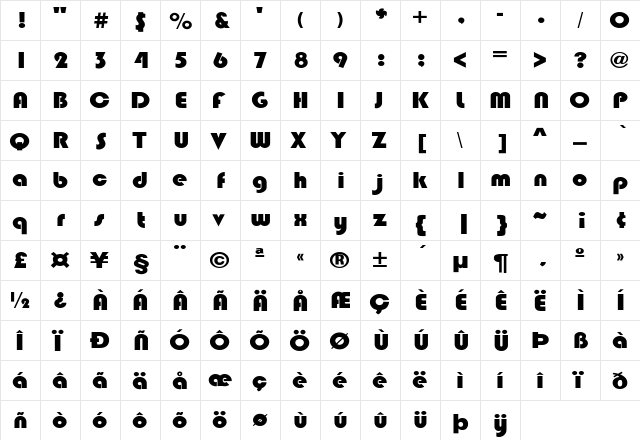
BlippoExt-Heavy Regular
Design Context for BlippoExt-Heavy Typeface
BlippoExt-Heavy offers clean, dependable letterforms without strong stylistic allegiance, making it a practical choice for designers who need flexibility.